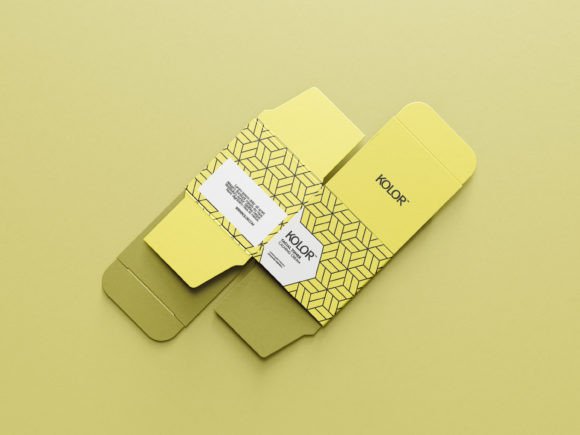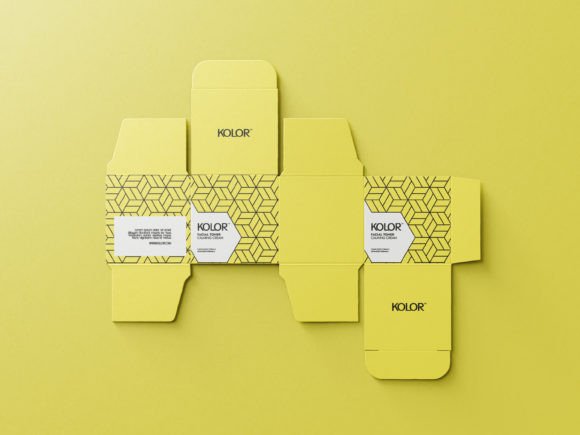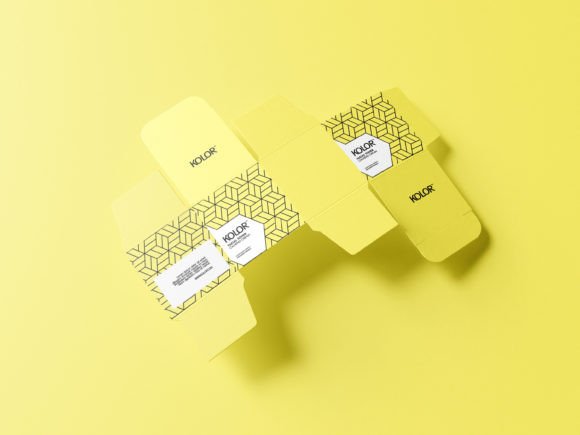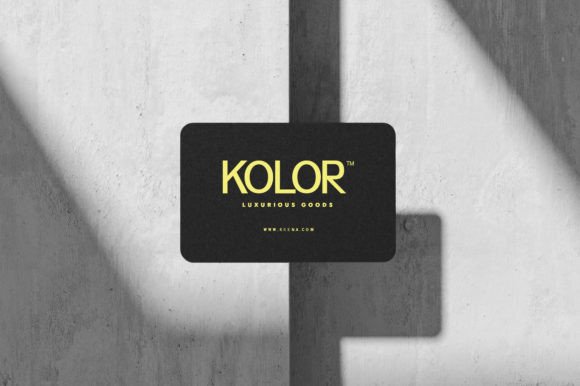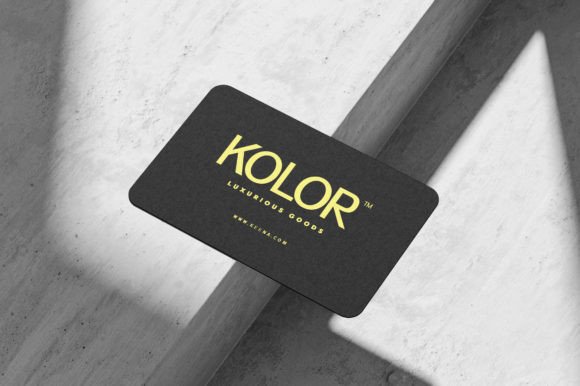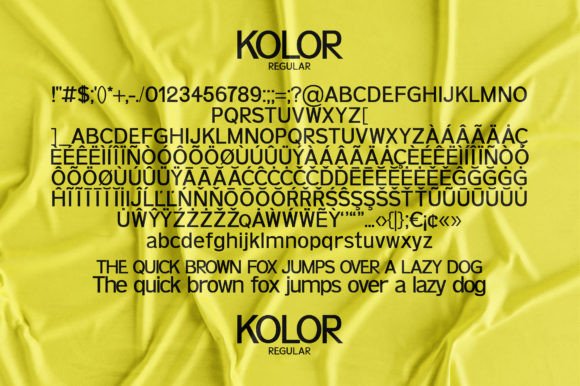
Introduction to Kolor Font
As a designer, there’s nothing quite like the thrill of bringing a new creative project to life. You’re staring at a blank canvas, with a vision in your mind, and the world of possibilities stretching out before you. The key to unlocking that vision is often the perfect font, one that sets the tone and guides the viewer’s eye through your design. That’s where the Kolor Font comes in – a high-quality, minimalistic sans serif typeface that’s perfect for a wide range of creative projects.
With its clean, geometric glyphs and transparent background, the Kolor Font is an invaluable design resource for any project that demands simplicity and elegance. Whether you’re designing a poster, packaging, or business card, this versatile font is sure to deliver impressive results. And the best part? You can download it for free, making it an essential addition to your design toolkit.
Key Features of Kolor Font
- High-quality vector design, ideal for creative projects requiring a professional touch.
- Unique characteristic: custom-designed to provide a vibrant and playful aesthetic, perfect for adding a pop of color to any design.
- Perfect for use in various creative projects, from graphic design to digital art, and web design.
Honest Review: Kolor Font
I recently had the chance to work with the Kolor Font in a creative project and I must say it was a game-changer. As a designer, I’m always on the lookout for high-quality design resources that can elevate my work, and Kolor Font definitely delivers.
What works well: ✨ The font is incredibly versatile and can be used in a variety of settings, from digital design to print materials. The transparent background makes it easy to layer and customize to fit any design aesthetic. I also appreciate that it’s a free download, making it accessible to designers of all levels.
However, I do have to mention a few limitations: ⚠️ While the font is high-quality, it’s not suitable for all design applications. It’s also worth noting that some users may find the font a bit too bold or overpowering, depending on the context in which it’s used.
Overall impression: I’m really impressed with the Kolor Font and would definitely recommend it to fellow designers. It’s a fantastic addition to any design resource library and can add a lot of depth and creativity to any project.
Tips for Getting the Most Out of Kolor Font
To get the most out of Kolor Font, experiment with different font sizes, colors, and styles. Use it in combination with other design elements to create a visually appealing design. You can also use Kolor Font to create a consistent brand identity across your creative project.
Kolor Font is commonly used for creative projects such as graphic design, logo creation, and branding. Its high-quality design and transparent background make it ideal for use in various design applications. Whether you’re creating a business card, brochure, or website, Kolor Font can help you achieve a professional-looking result.
Alternatives to Kolor Font